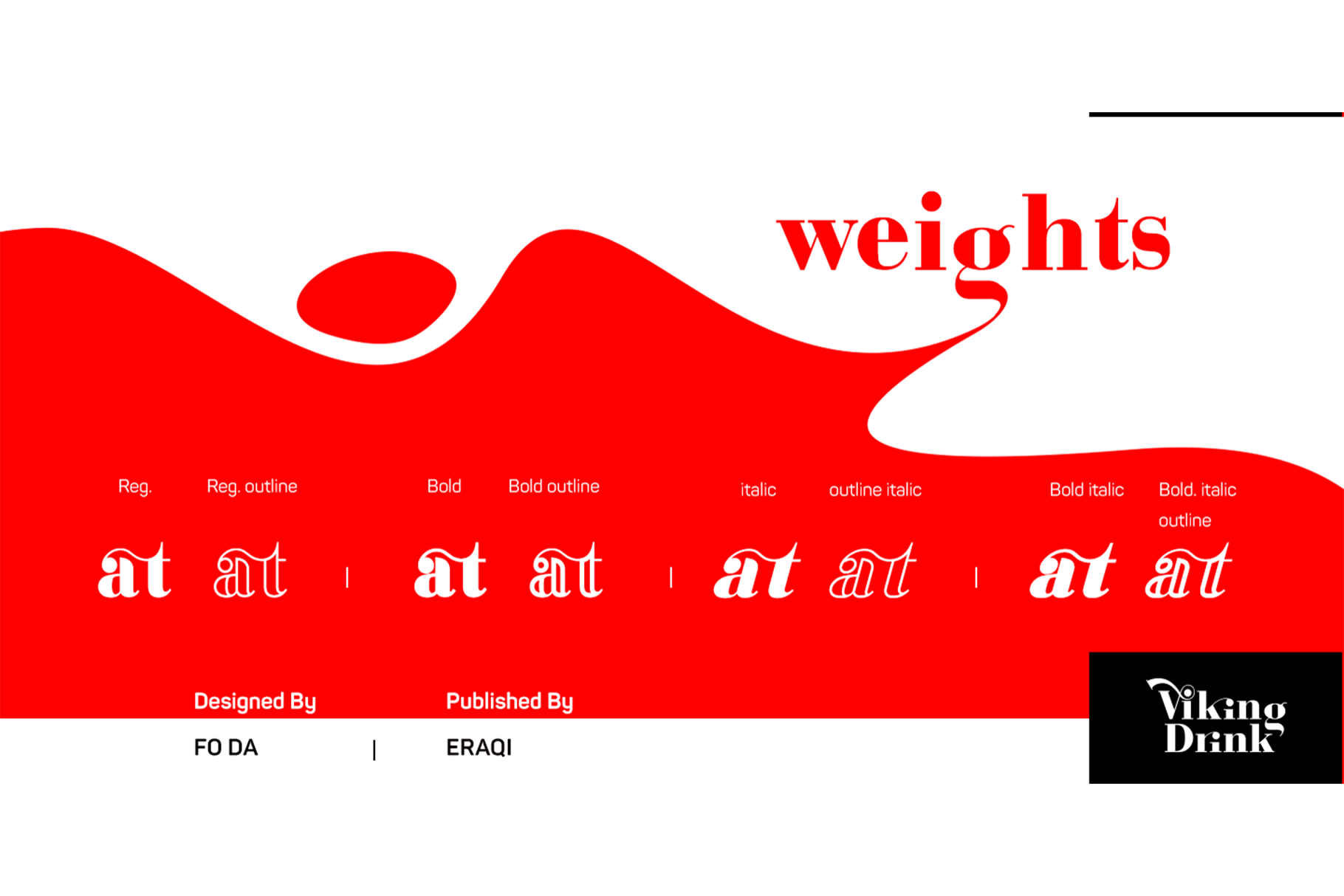
Viking Drink Font
Viking Drink is a display font derivative from serif family of eight weights ranging from Regular to Bold and matching Italics, which gives it a full range of expression and suitability for advertising, interfaces and corporate design. Viking Drink provides 3 FREE weights ( Regular, Italic and Bold ). It has 17 ligatures that add powerful effect when used for creating logos or headlines. It also supports many languages.